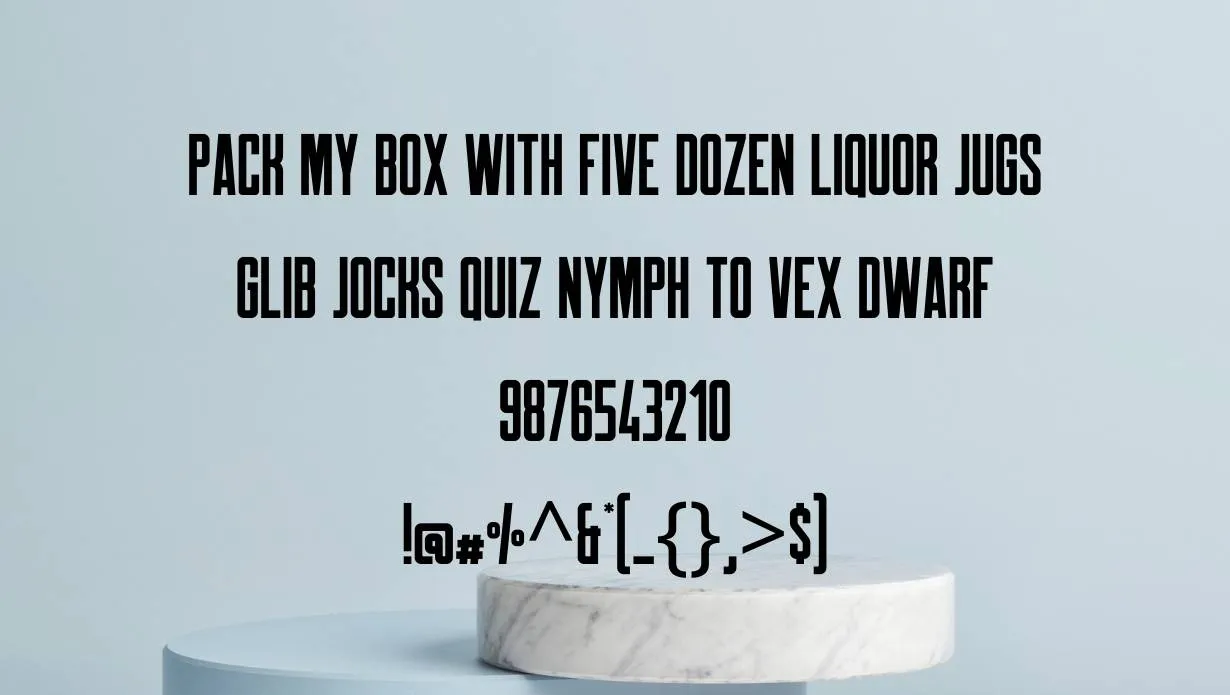
Robinson Font is a display typeface designed by American Type Founders in 1897. The design is based on an earlier face called Agricultural, which was designed by RichardDuration in 1892 and first used in the United States by the National Farmer’s Bank of Owatonna, Minnesota.
This font was intended for use as a display or headline face and was popular for advertising and posters in the early twentieth century. It was also used extensively by the WPA during the Great Depression for government propaganda and public information materials.
This typeface has an interesting history, Robinson Font is available in both regular and bold weights, as well as italic and oblique styles. It’s a very versatile typeface that can be used in a variety of ways.
Who Used Robinson Font?
It is best used as a display project. It’s perfect for advertising and posters, thanks to its strong visual impact. This typeface style has been popular for many years and will continue to be so.
This typeface is also commonly used in government propaganda and public information materials, because of its simple and easy-to-read appearance. This typeface is a display typeface, which means that it doesn’t have any fancy serifs or other decorative elements.
This typeface is not currently available in the Google font store. The letters are all very simple and straightforward, which makes them easy to read from a distance.
The pairing and similar font to this typeface are playfair display font that has more than 300 glyphs, upper and lowercase, and a wide range of language supports.
Robinson Font Family Appearance
Robinson Font Family appearance
NameRobinson Font
DesignerRichardDuration
StyleDisplay
Alternatives of Robinson Font
Family of Robinson Font
• Robinson Regular Font
Is Robinson Font useful for print design?
This font is available in a wide variety of weights and widths, making it a versatile typeface for both digital and print design projects.
What are the benefits of using Robinson Font?
It is a versatile and professional typeface that can be used for a variety of purposes. The font is legible and easy to read, making it perfect for use in logo design and graphic design projects.